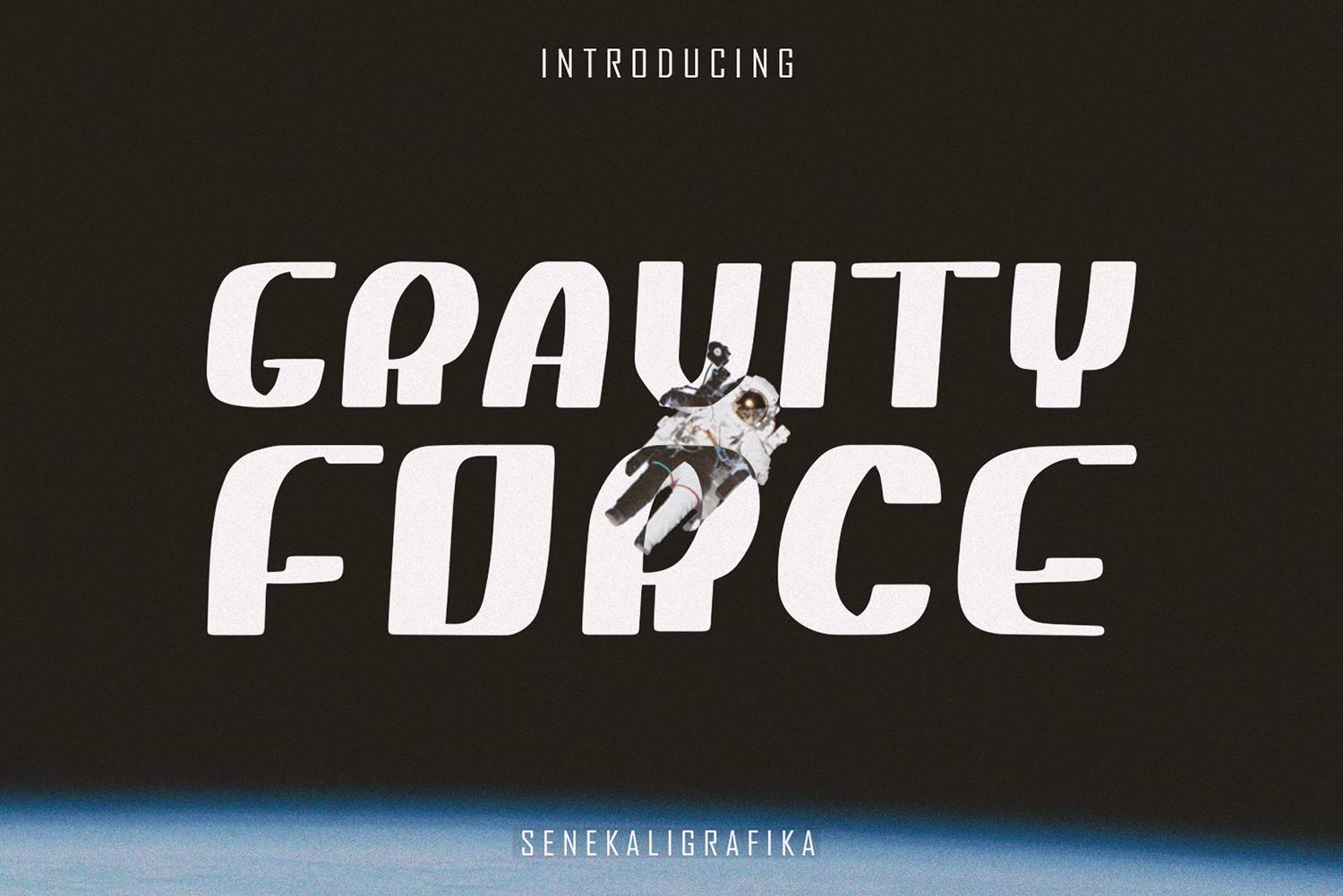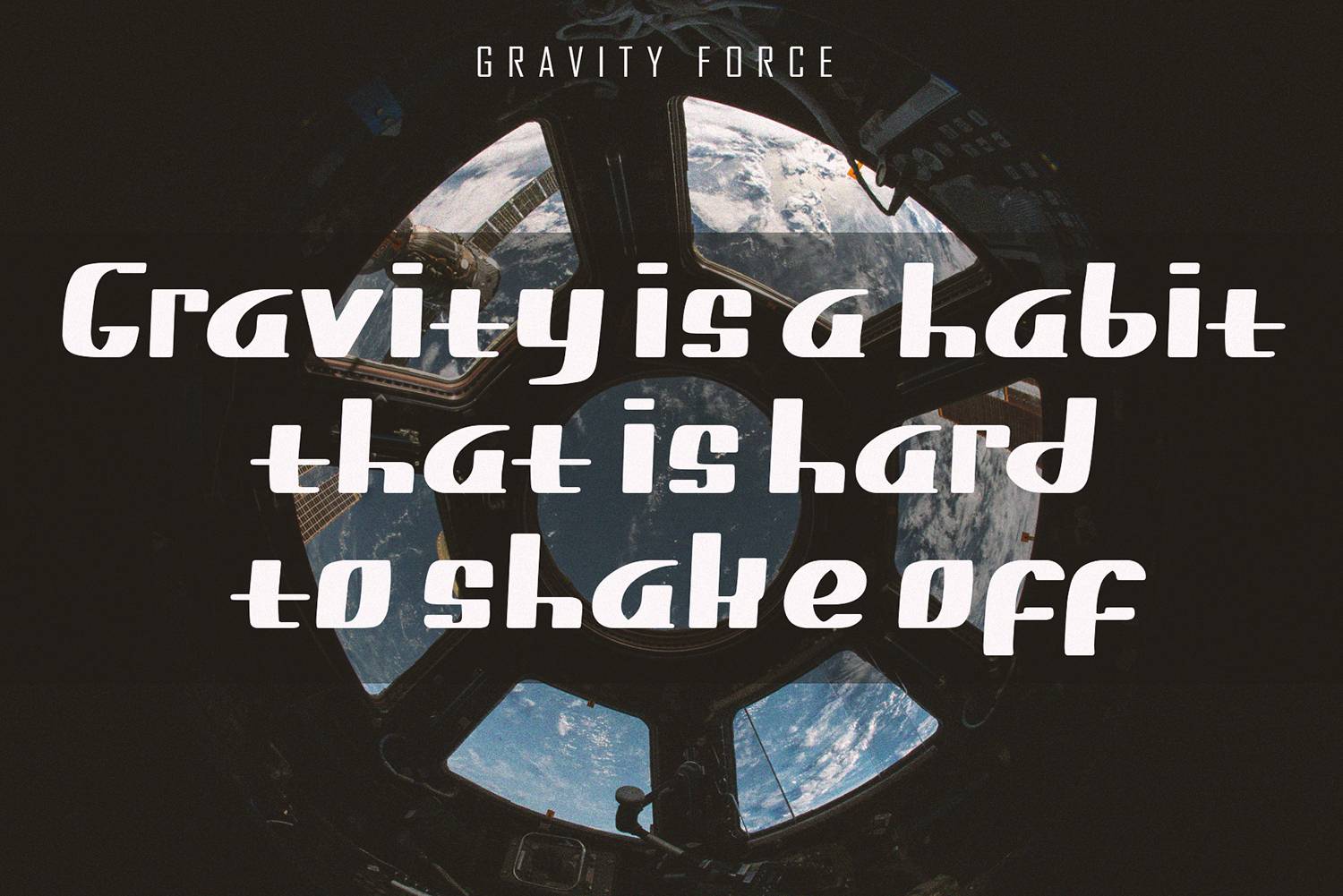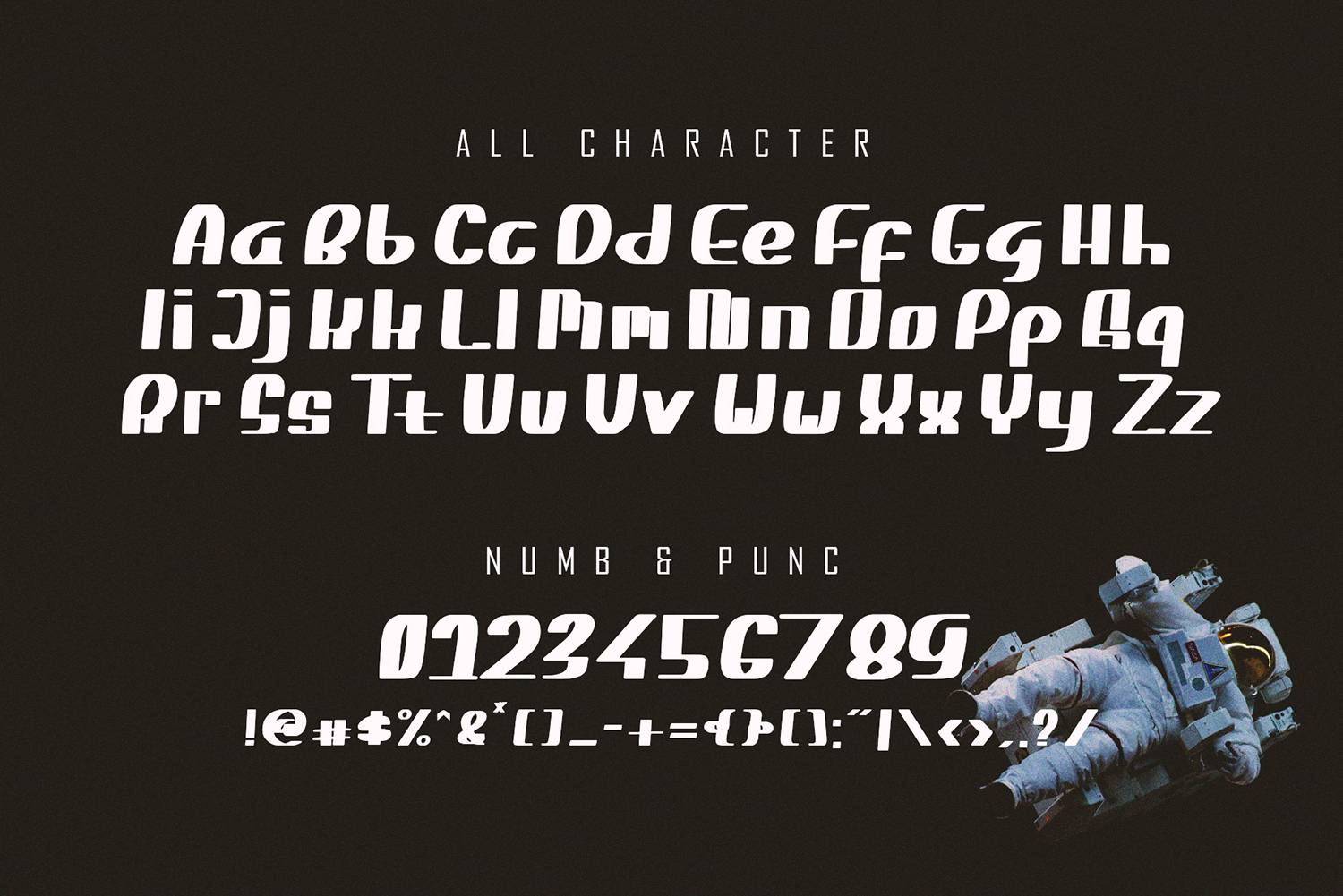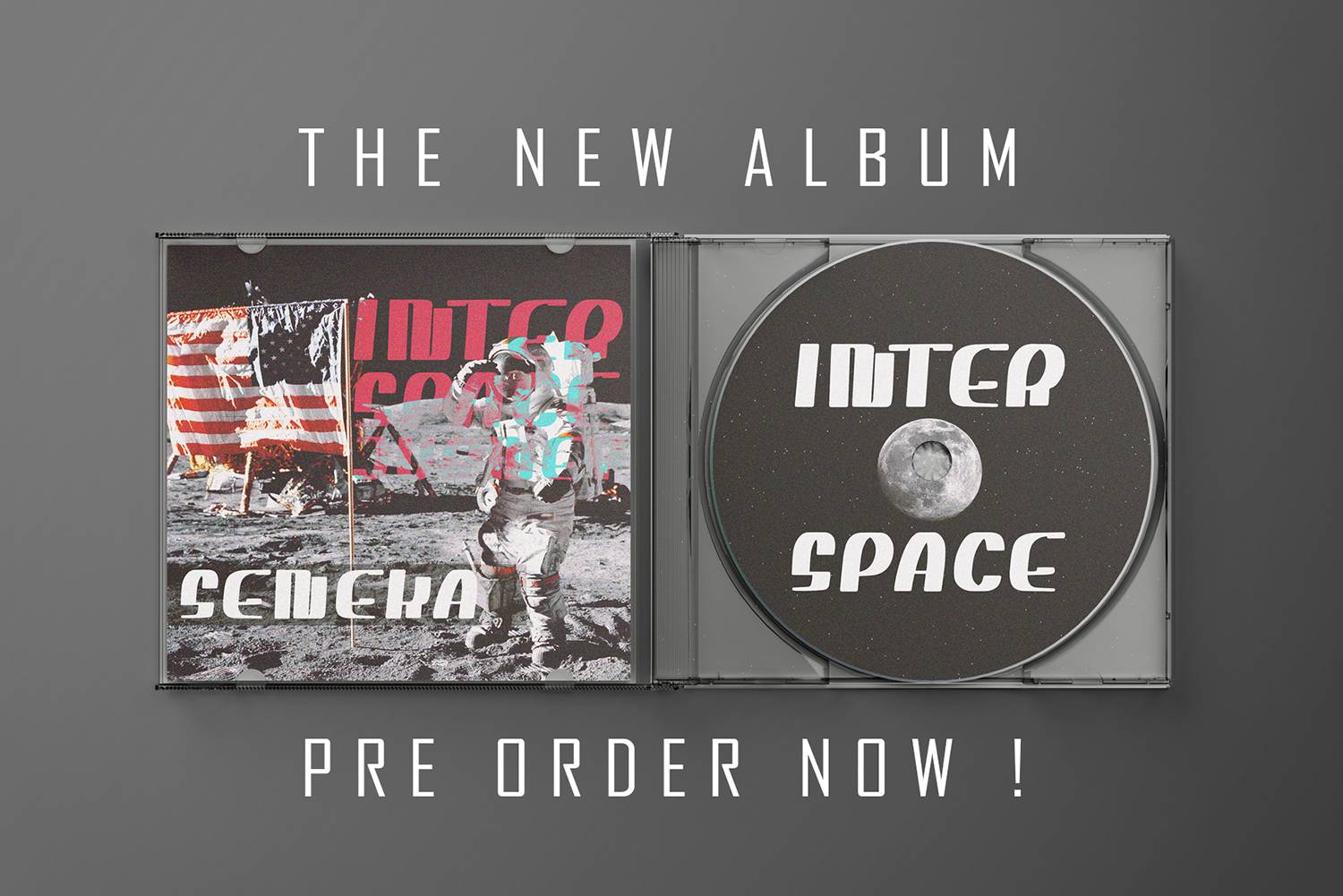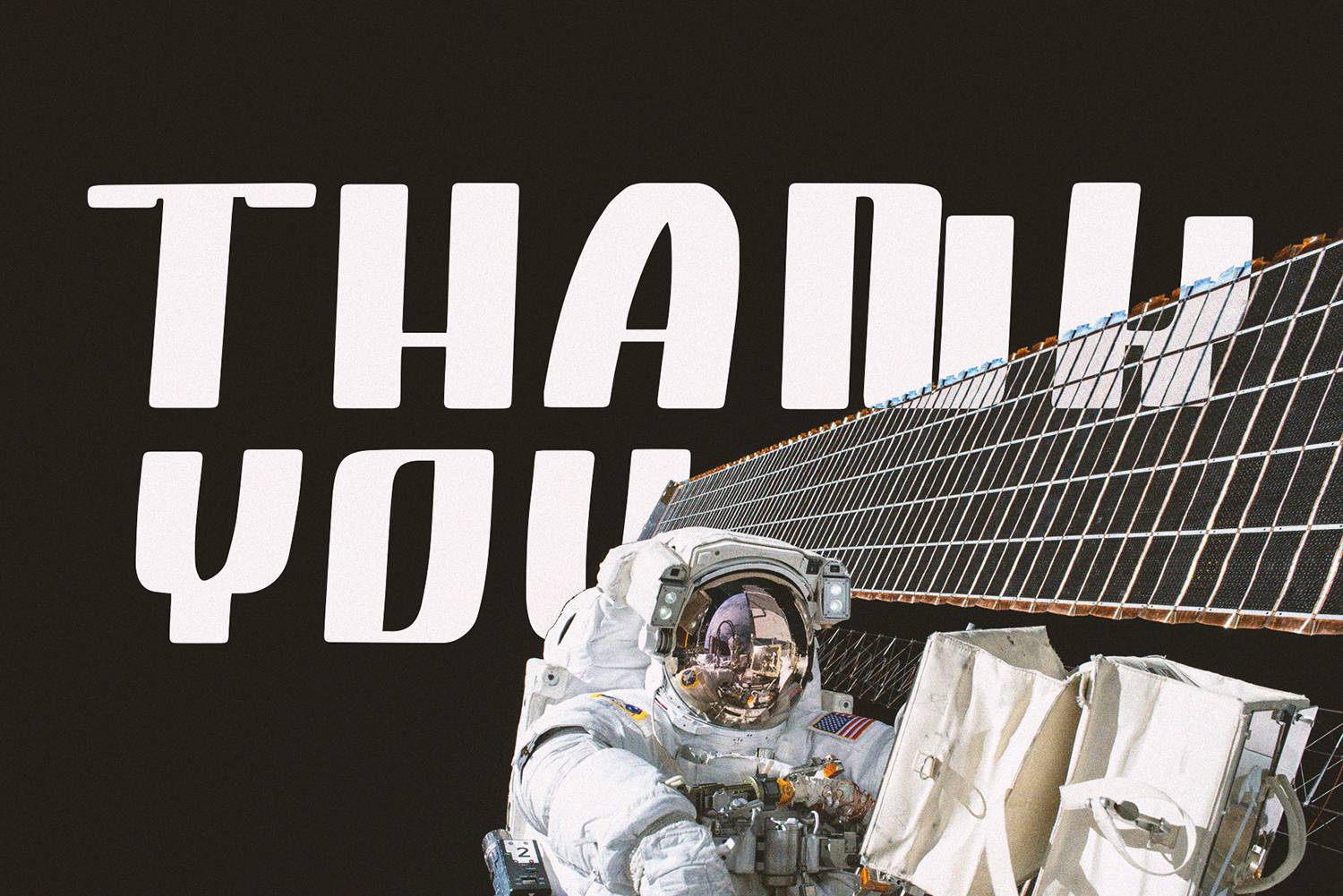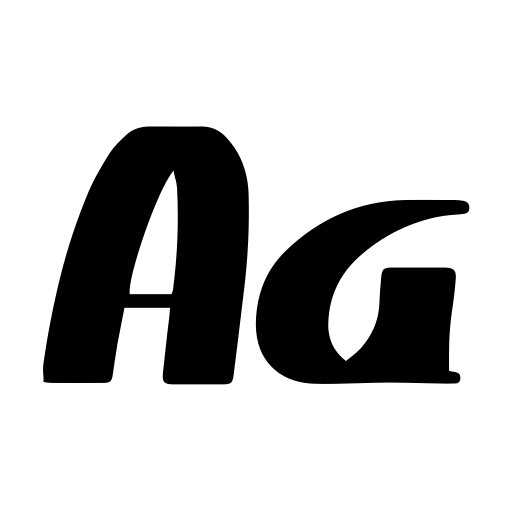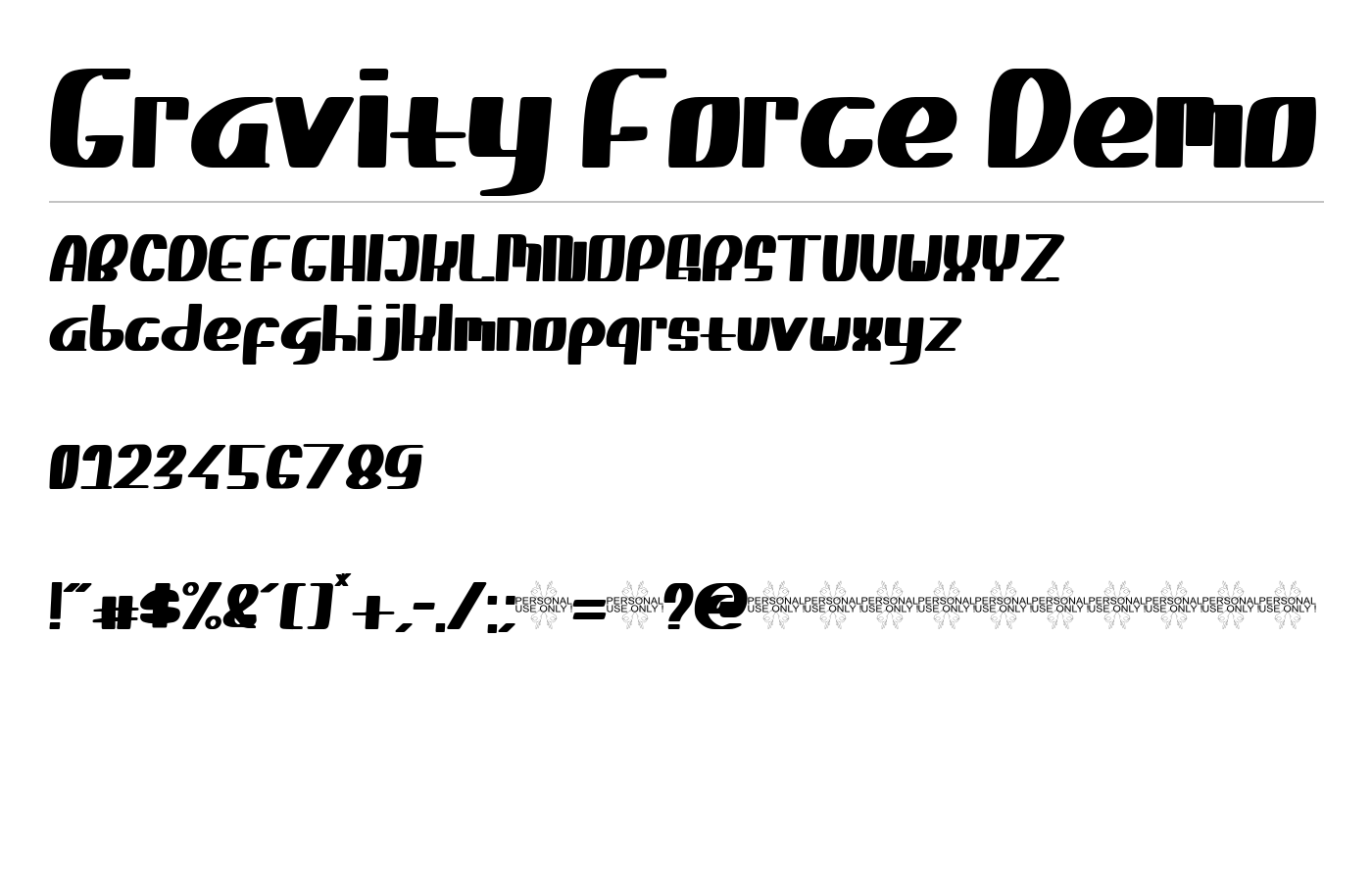
Gravity Force is a bold, condensed sans serif font with a strong, futuristic vibe highlighted by its unique curved terminals and dynamic letterforms. Its medium contrast and slightly slanted style give it an energetic and modern feel, making it perfect for impactful headlines, branding, and designs that seek a forward-thinking, tech-inspired look. This font works best where boldness and personality are key, such as in posters, logos, and creative digital media.
Gravity Force Font
About Gravity Force Font
| Font family | Gravity Force Font |
| Designer | Muhammad Helmi |
| Trademark | Seneka Grafika |